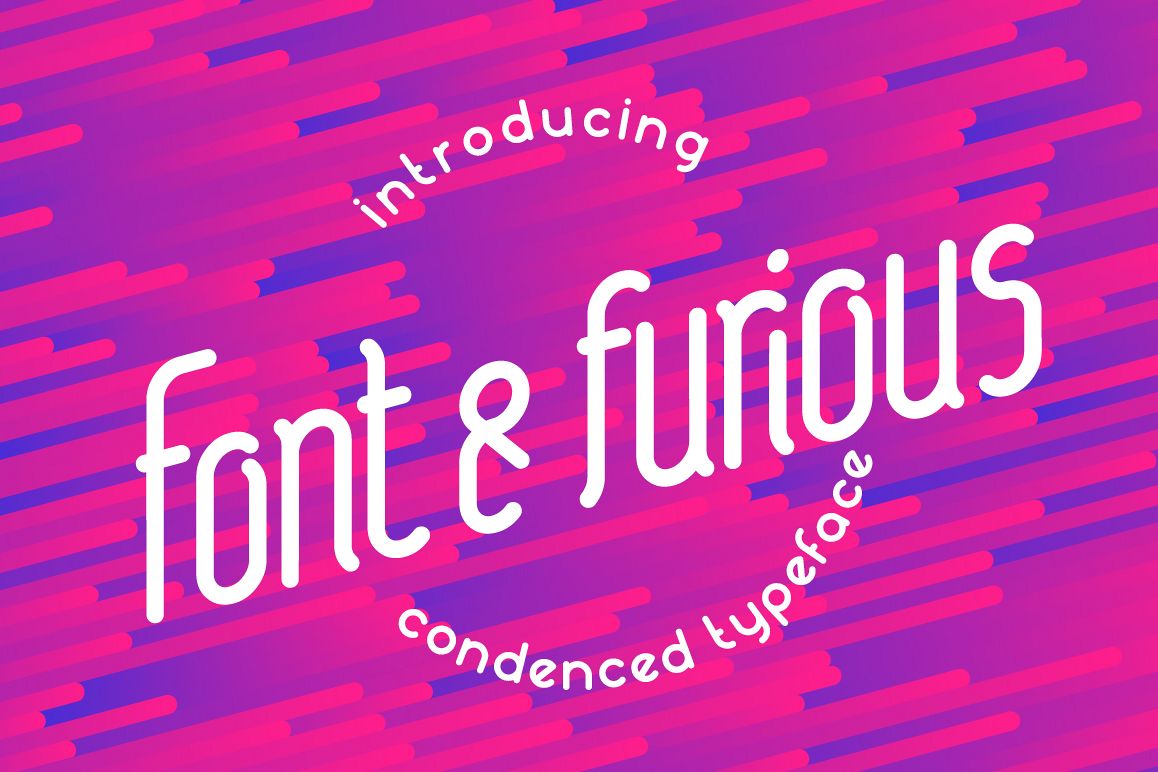
Font&furious
Font&furious Italic
Font&furious typeface is a clean, minimal, italic sans serif. It is a new display font with cool characters.
It looks smooth in any layout with its dynamic rounded shapes, use it for your magazines, brochures and editorial layouts.
It works well with normal size text and for large displays or short words.